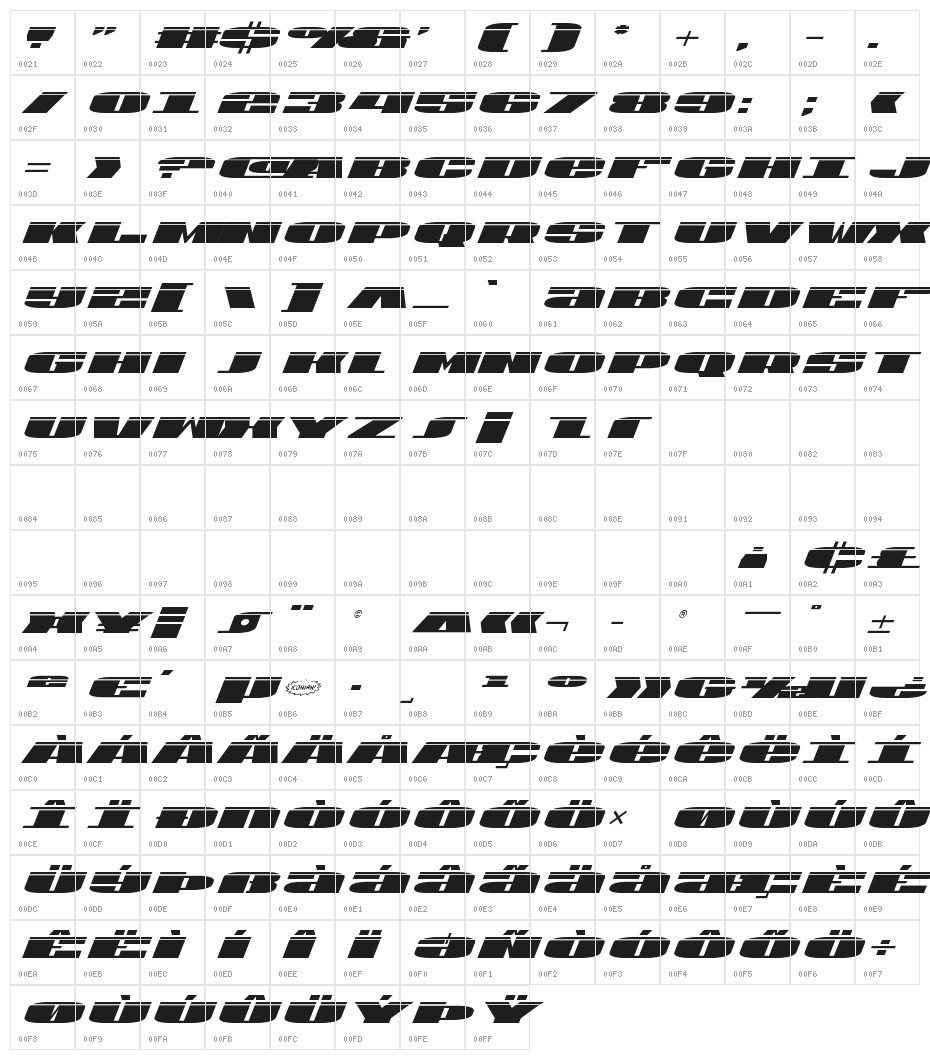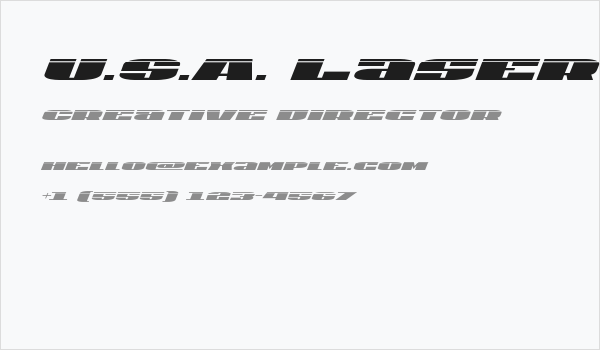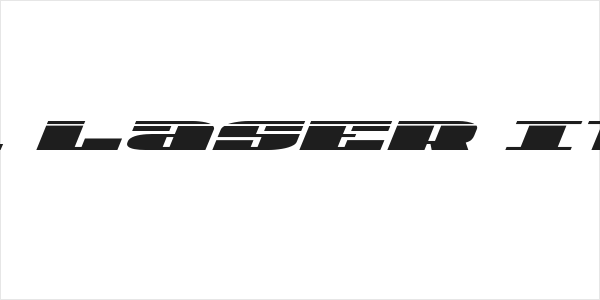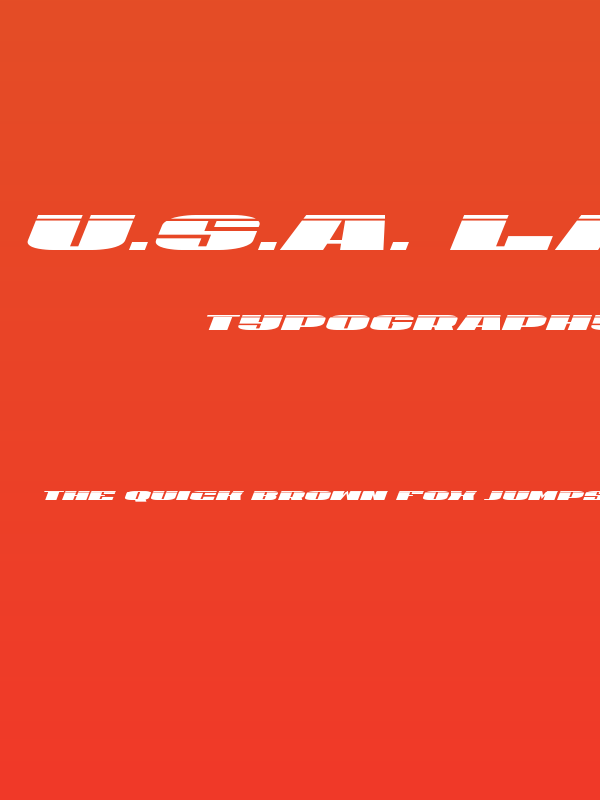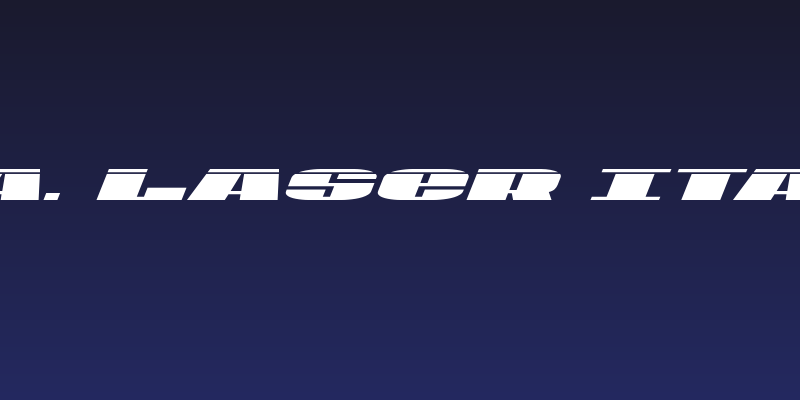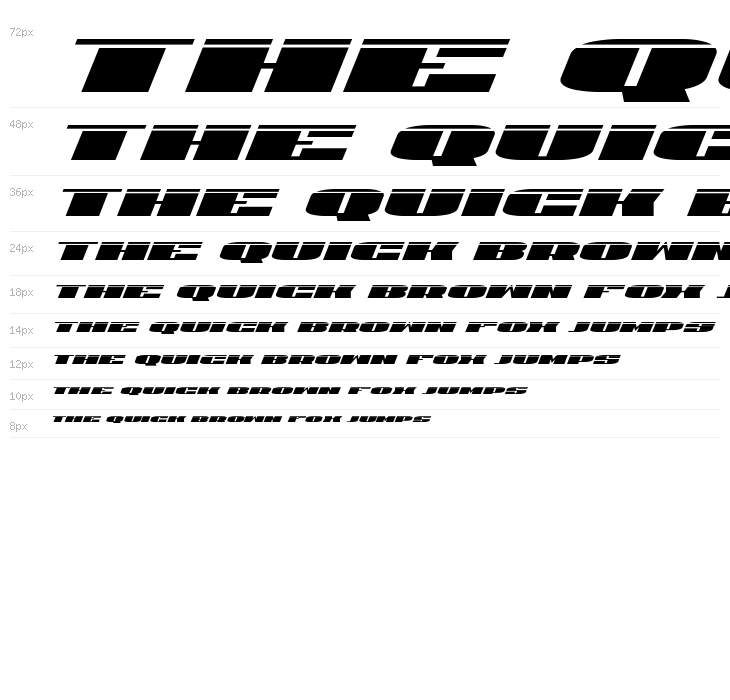
U.S.A. Laser Italic Font
U.S.A. Laser Italic Description
This font features a bold, italicized style with a futuristic and dynamic appearance. The characters are designed with a distinct slant, giving a sense of motion and speed. The strokes are thick and consistent, providing a strong visual impact. The font includes uppercase and lowercase letters, numbers, and a variety of special characters. Its design is reminiscent of high-tech or sci-fi themes, making it suitable for projects that require a modern and edgy look.
| Proposed Projects | Ideal for sci-fi themed posters, technology branding, video game titles, and dynamic logo designs. |